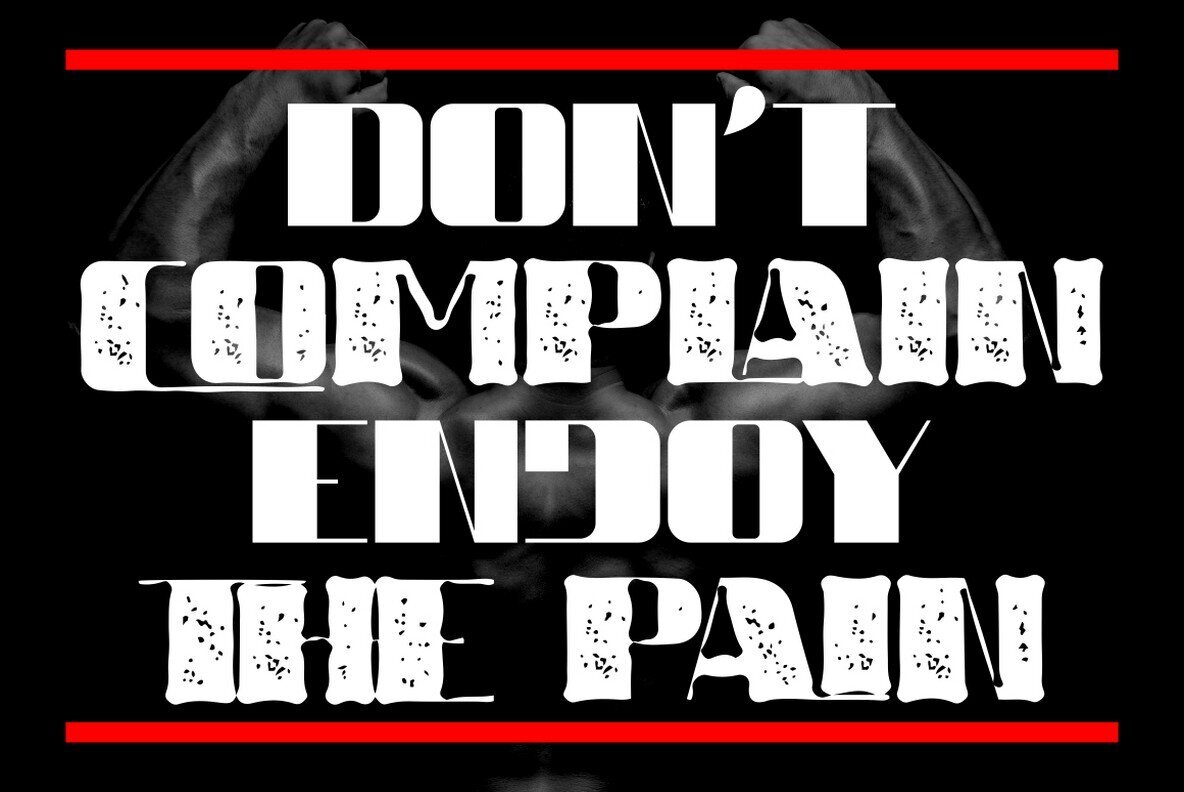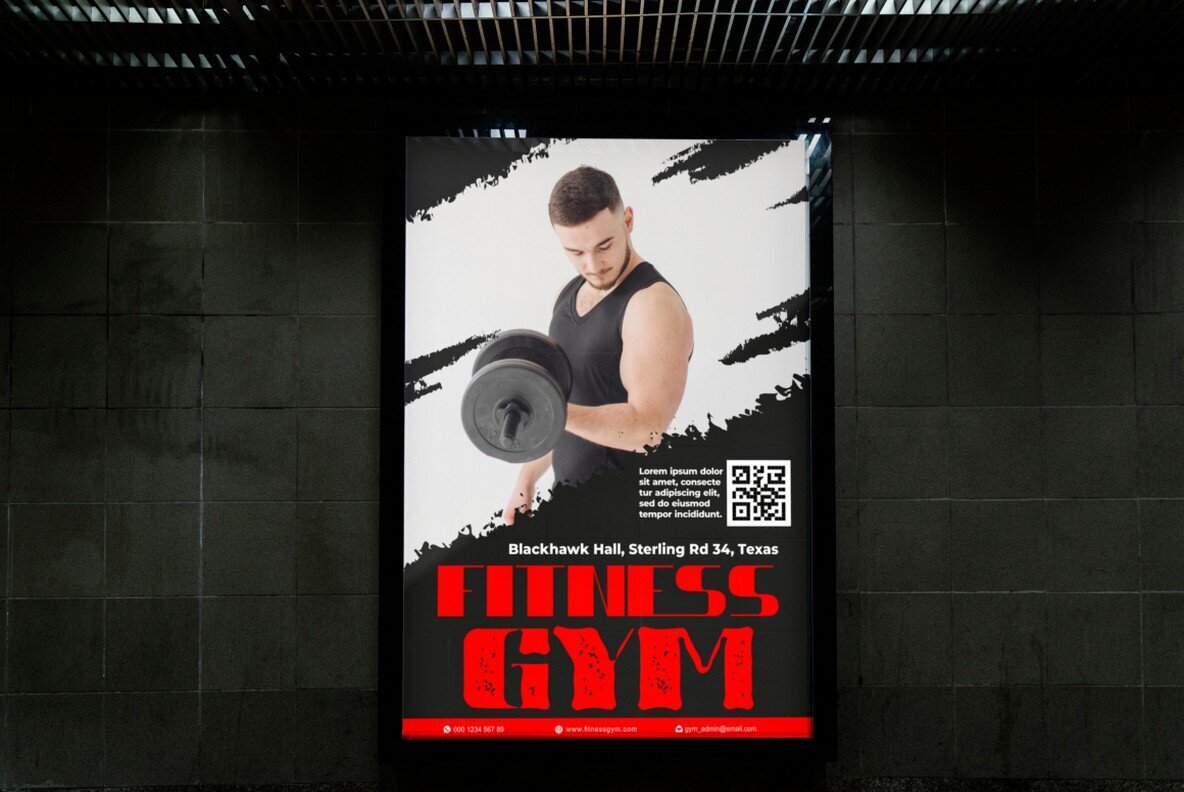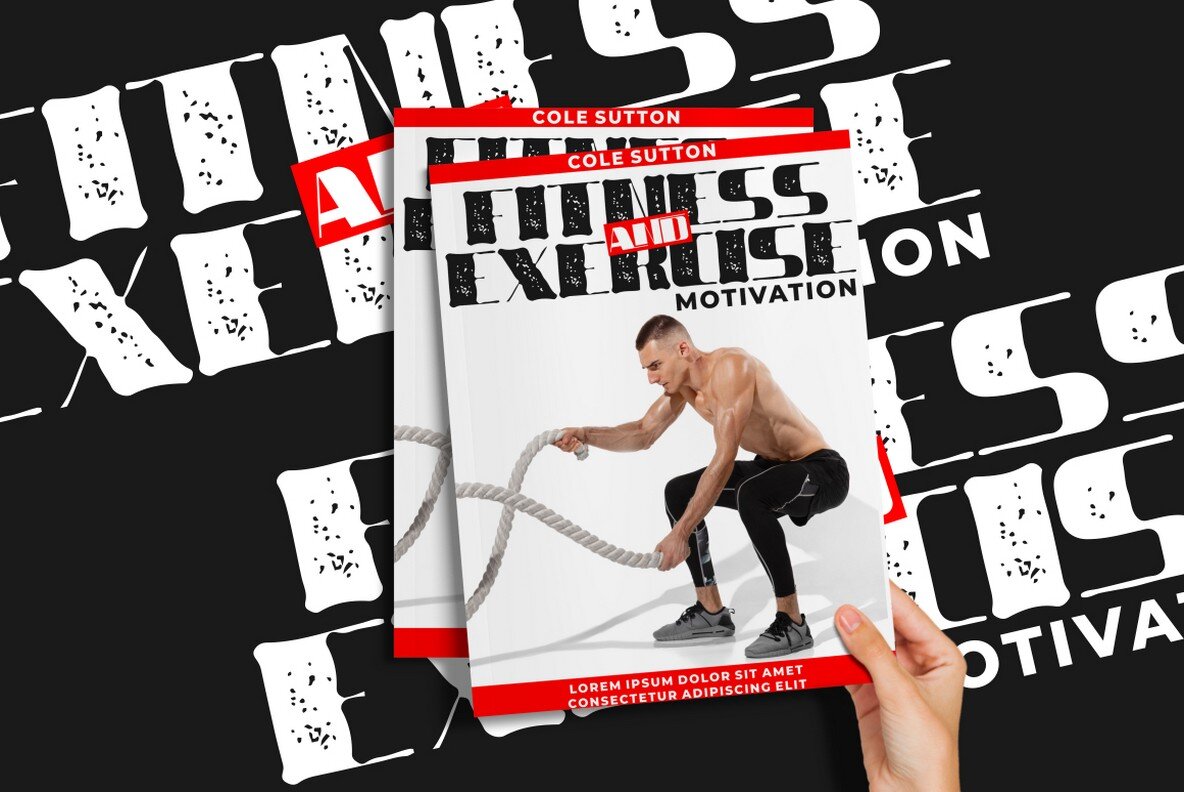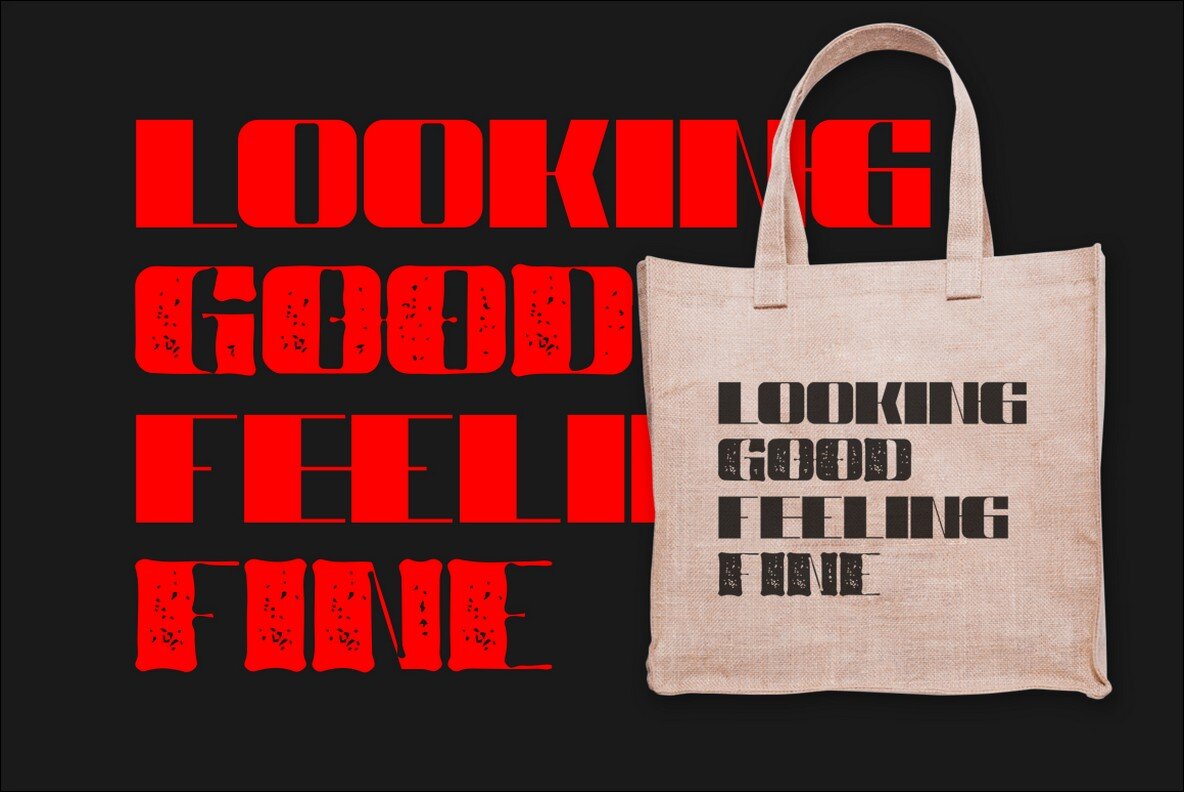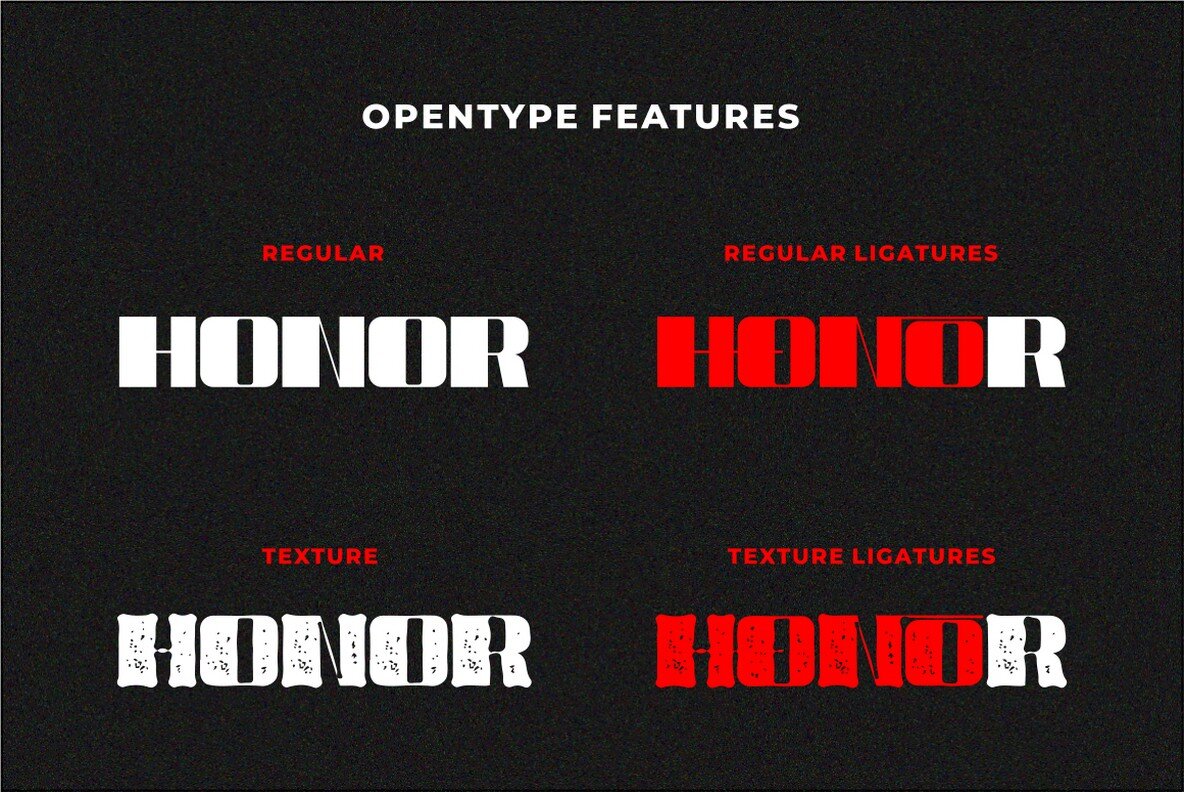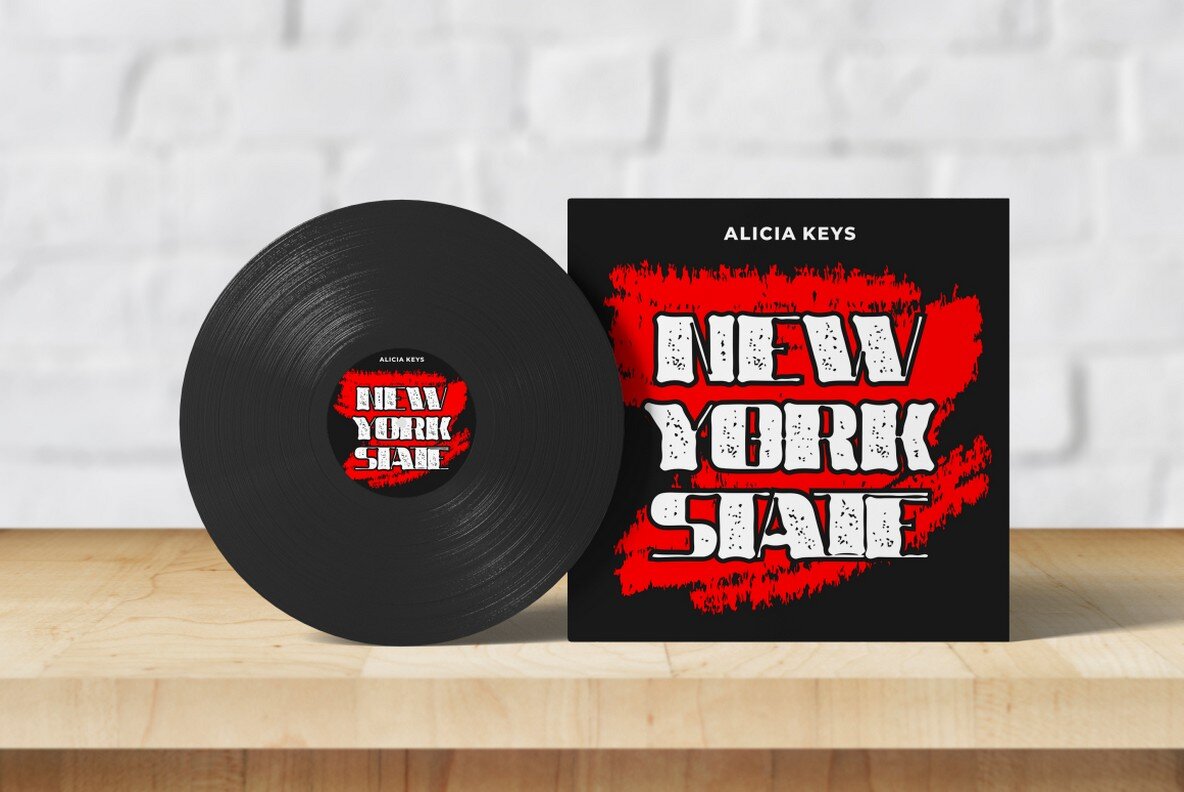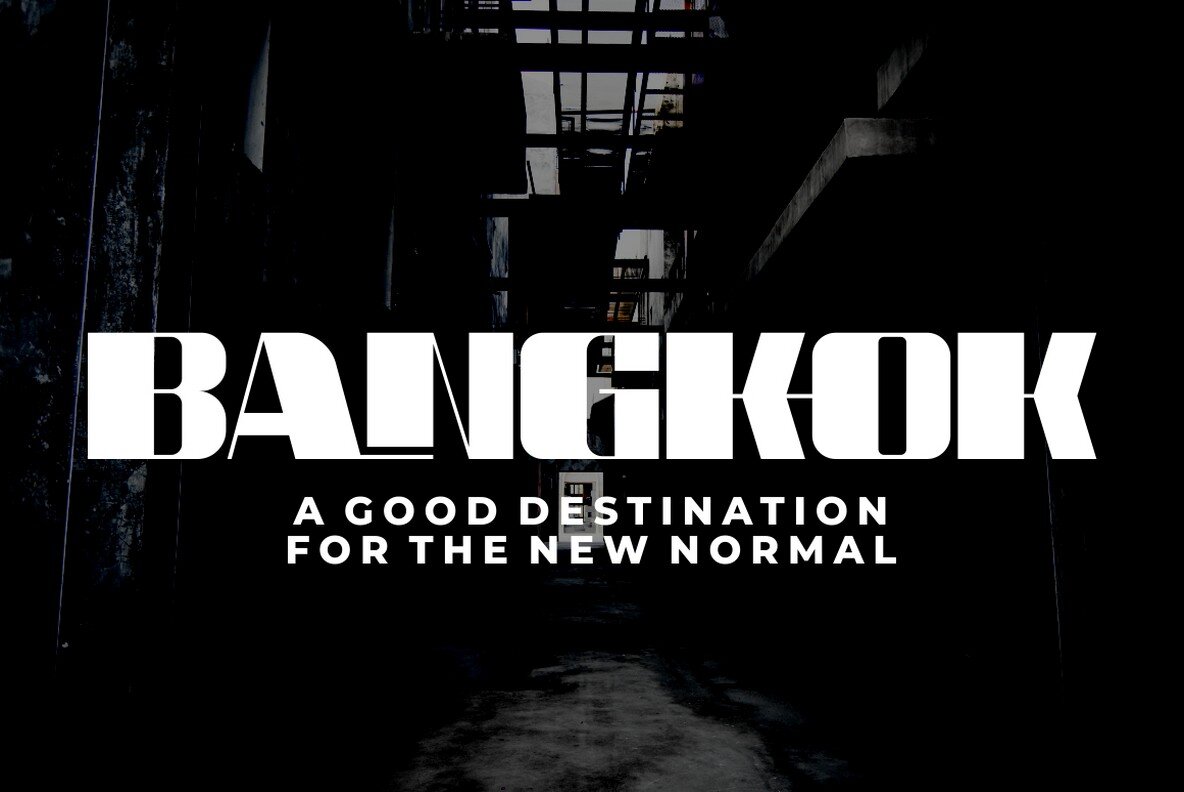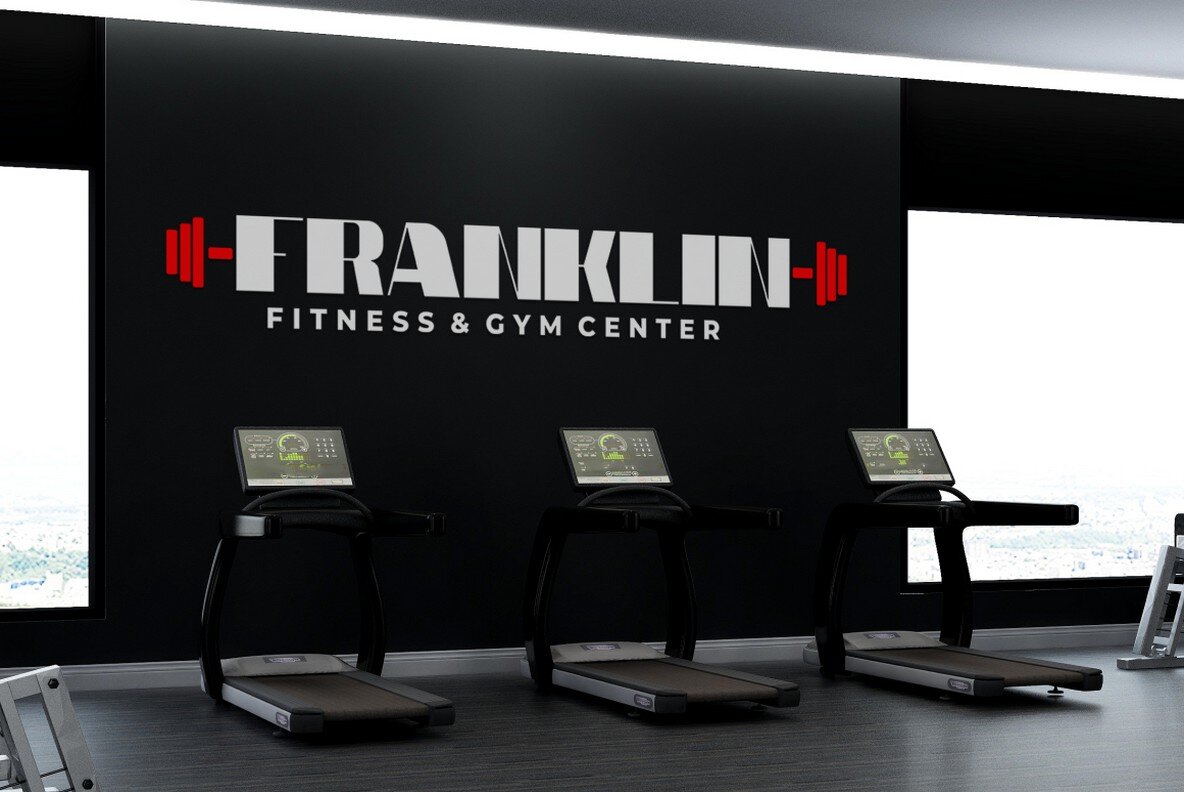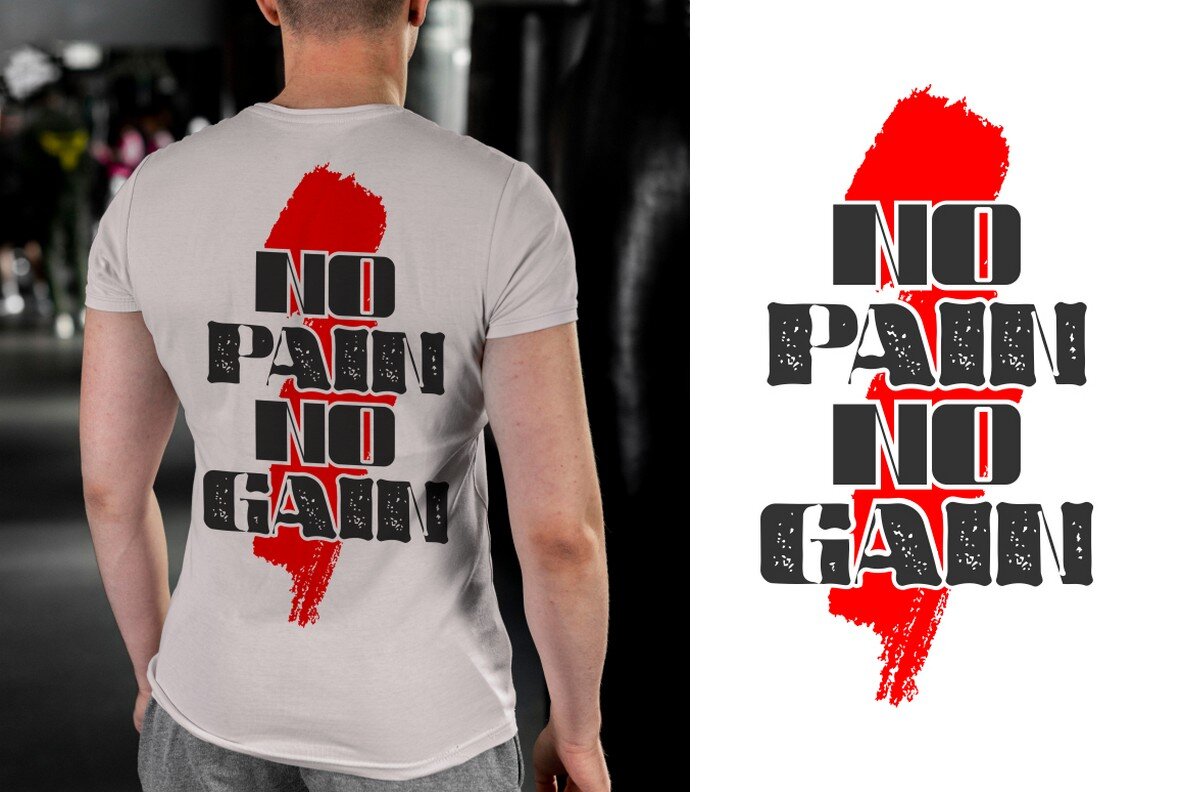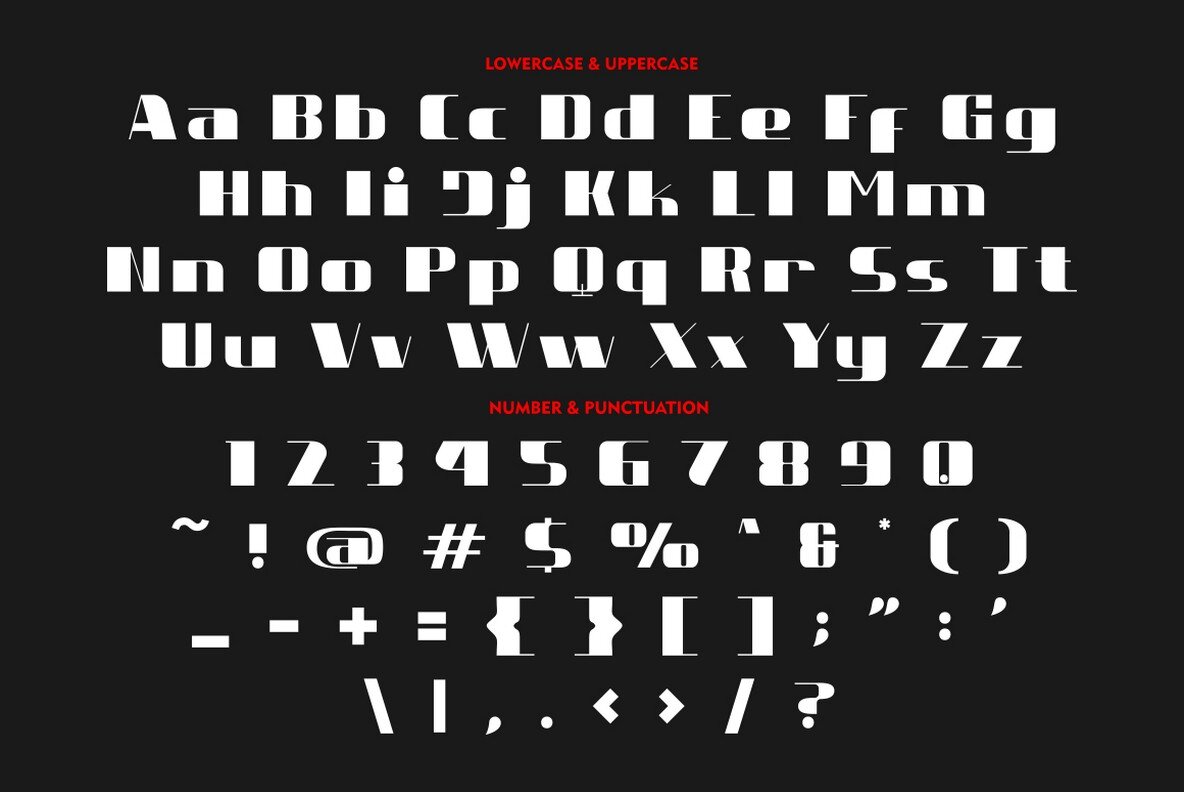
Legator Font
Legator captures the essence of bold, playful typography with its super bold and quirky characteristics. Designed with a sporty style, this typeface is perfect for projects needing a vibrant, energetic flair. Suitable for a variety of creative applications, Legator thrives in formats like storybooks, illustrations, comic books, t-shirts, posters, greeting cards, logos, and branding. The alternative characters are conveniently organized into OpenType features such as Swash, Stylistic Sets, and Ligatures. These can be accessed using programs like Adobe Illustrator, Adobe InDesign, and others. Embrace the dynamic nature of Legator in your next design venture.Legator: Quirky and Bold Display Typeface